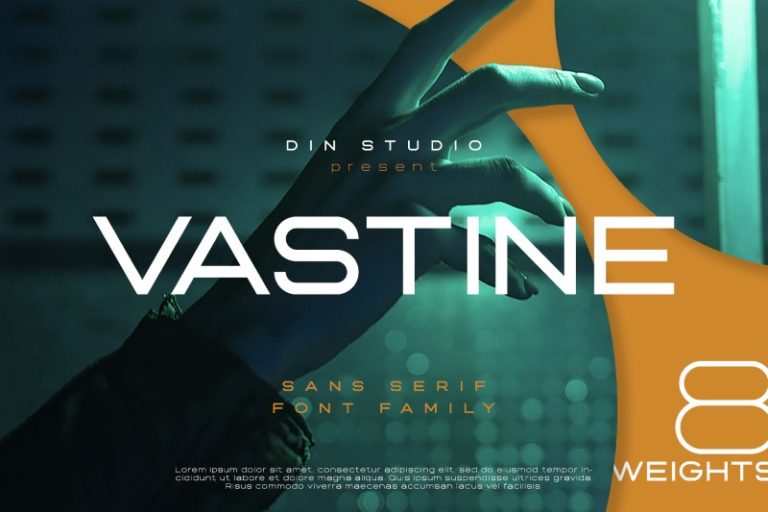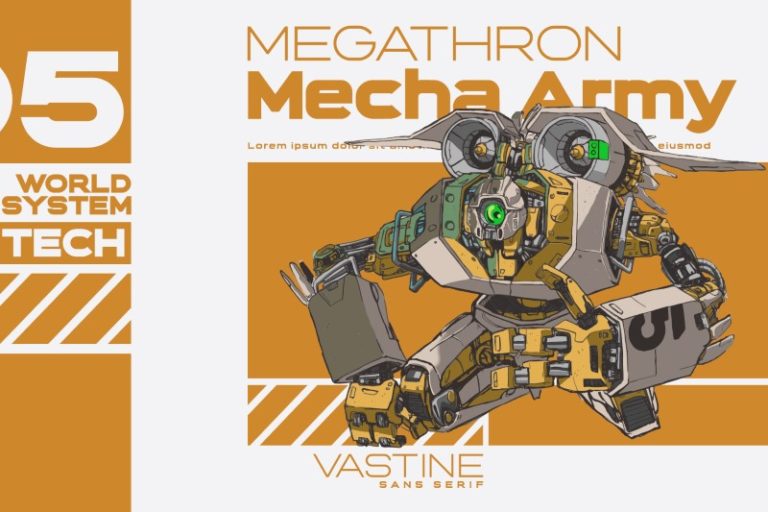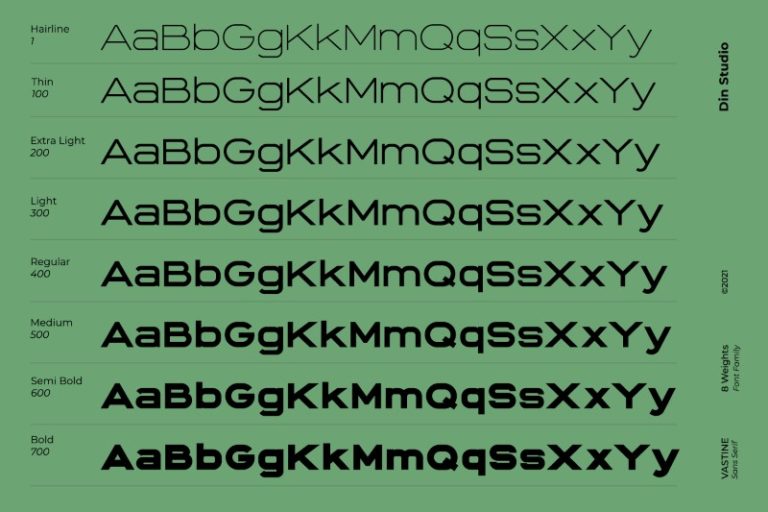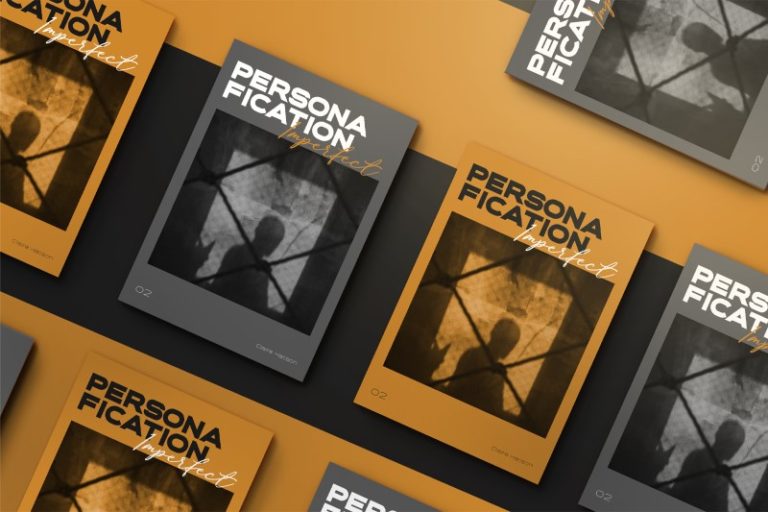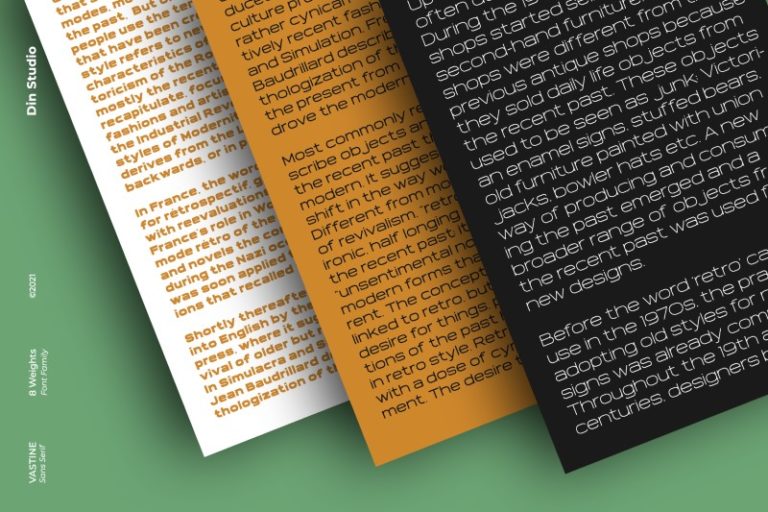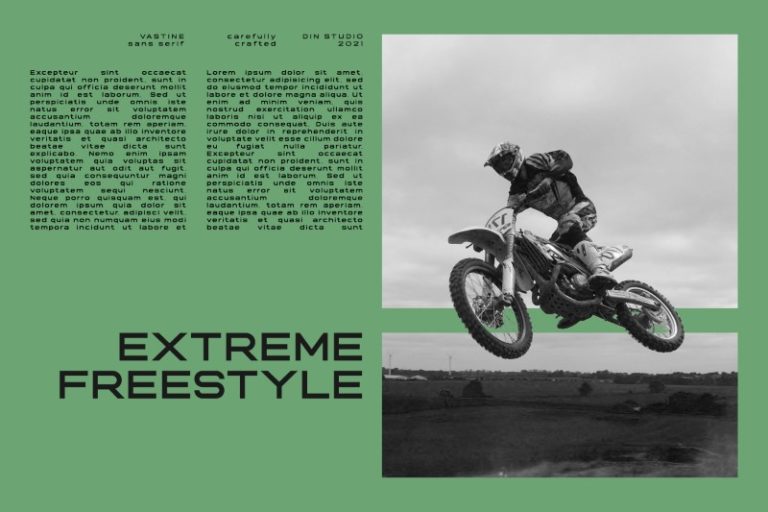
Vastine – Modern Sans Serif Font Family
Vastine Hairline
Hello, Everyone! Ready to make your branding spark? If you need to create a big, bold logo for your business, work on a poster for an event, or whatever your projects are, Vastine sans serif font is the perfect one for you.
Vastine, a Sans Serif Font Family, is your surprising package as you will get more options to maximize your designs with this stylish font. It is made in uppercase and lowercase letters which are easy on the eyes and nice to look at, and easy to read. This font is designed to bring your brandings to life and add a touch of modernity, fun and style. Perfect to create amazing headings, logos, menus, social media graphics, and so on.
- Vastine Hairline
- Vastine Thin
- Vastine Light
- Vastine Regular
- Vastine Medium
- Vastine Semi Bold
- Vastine Bold